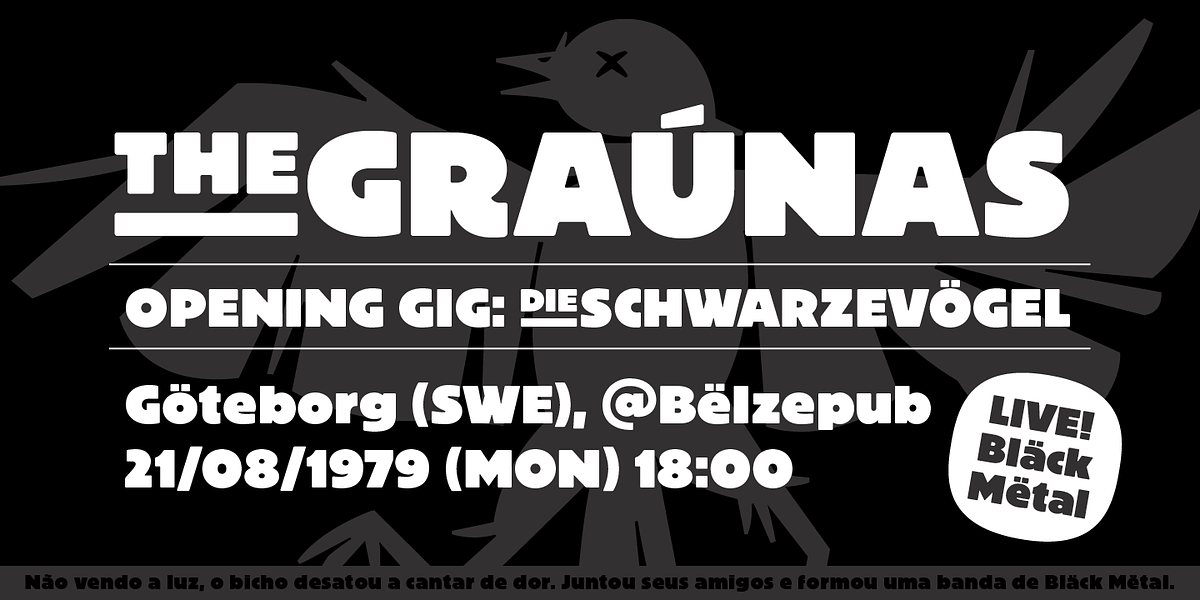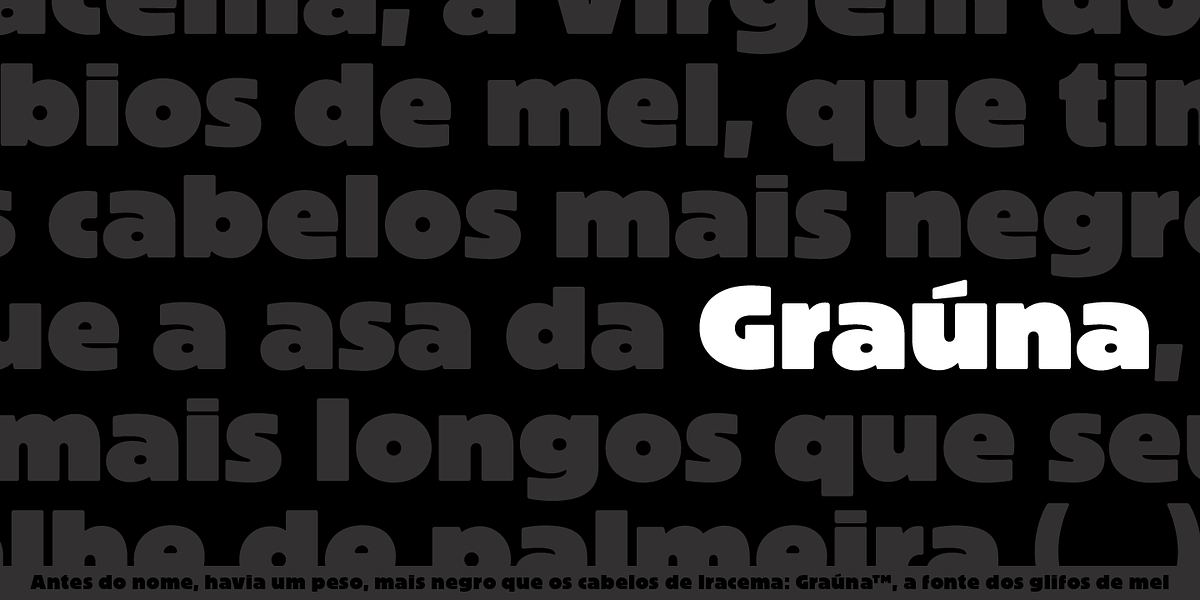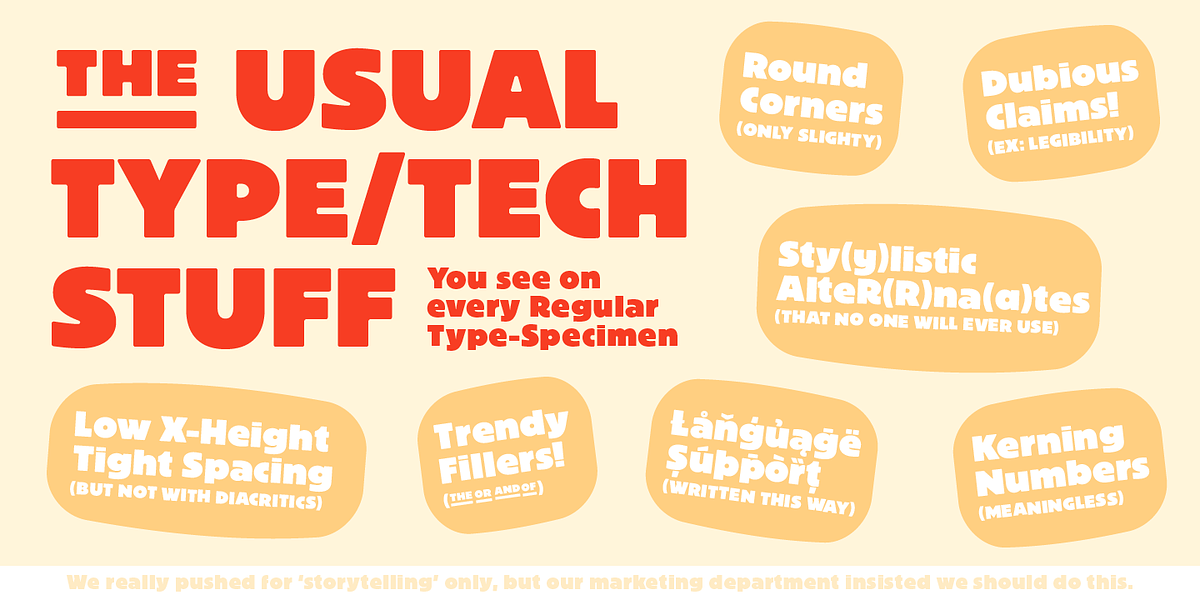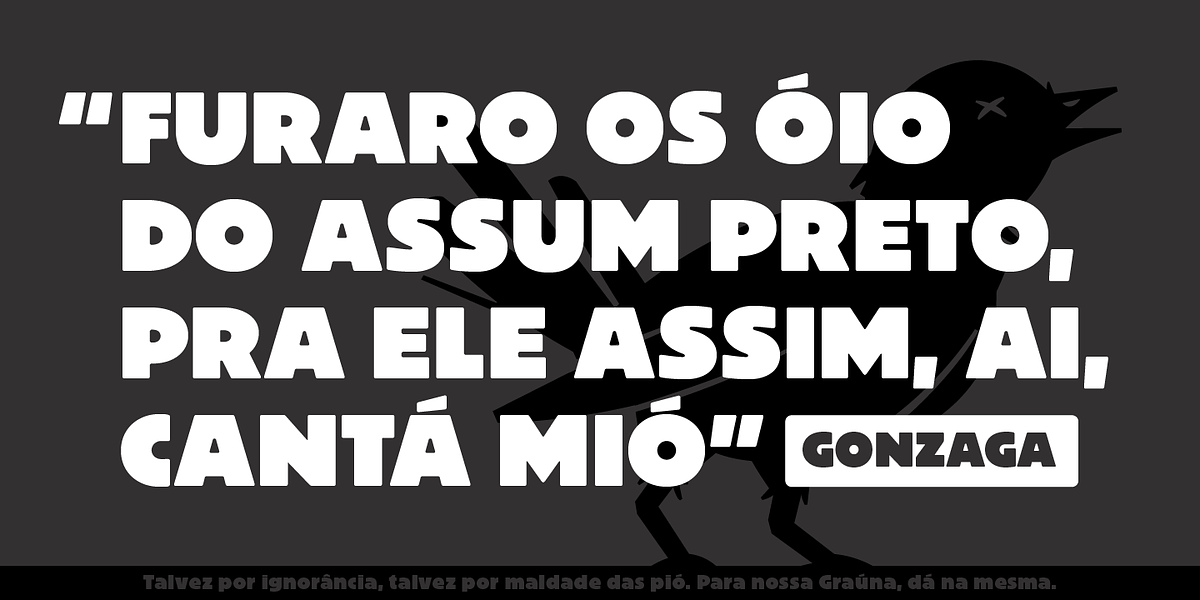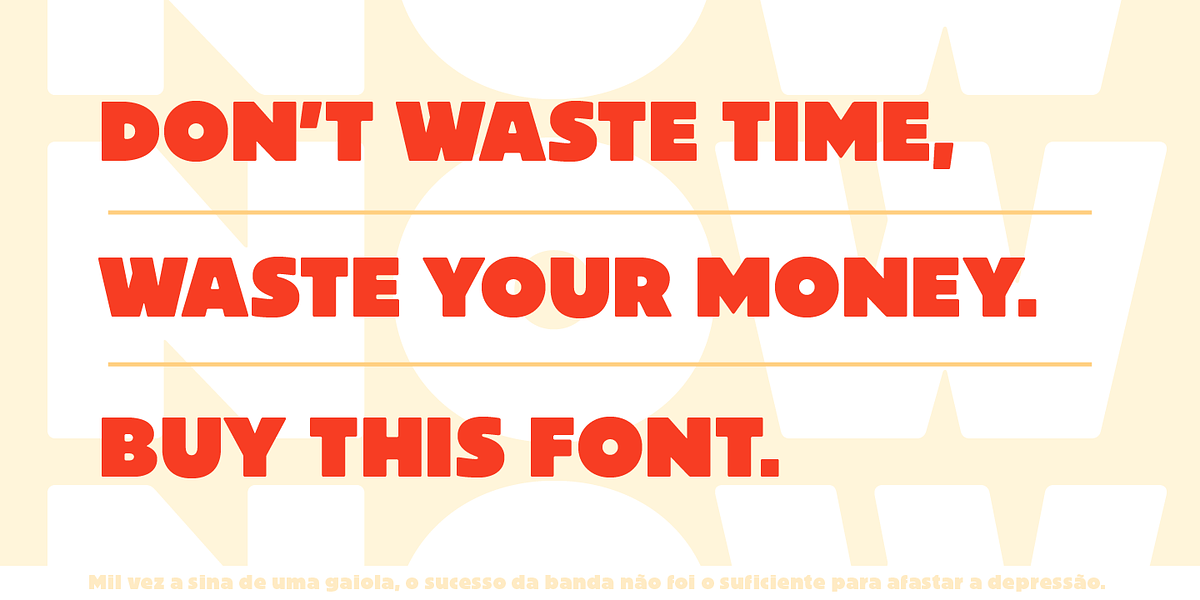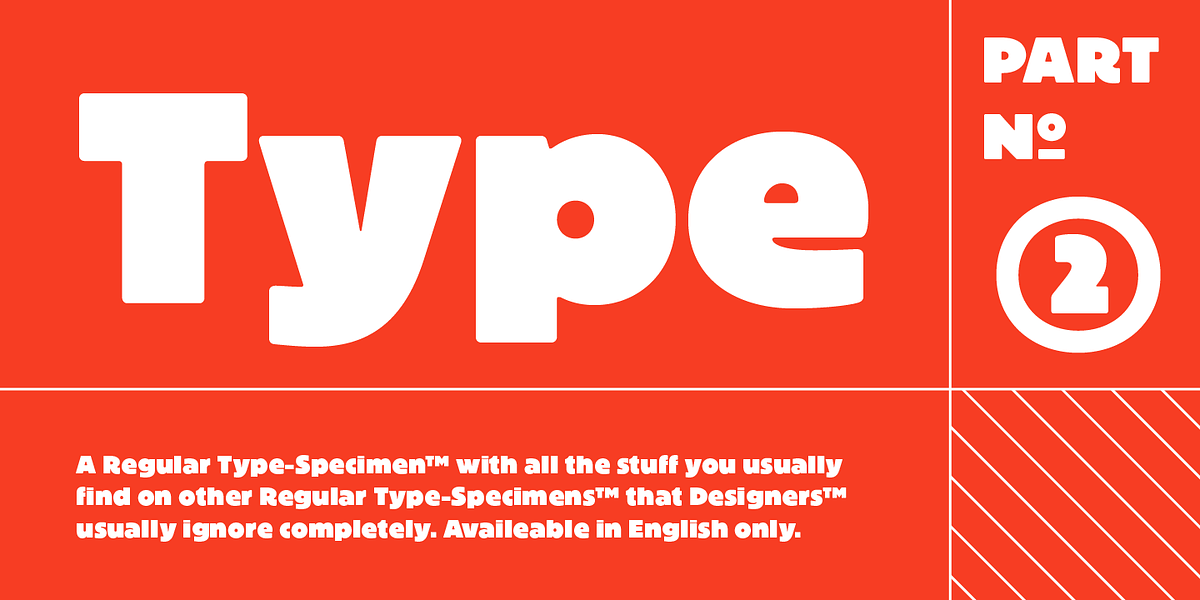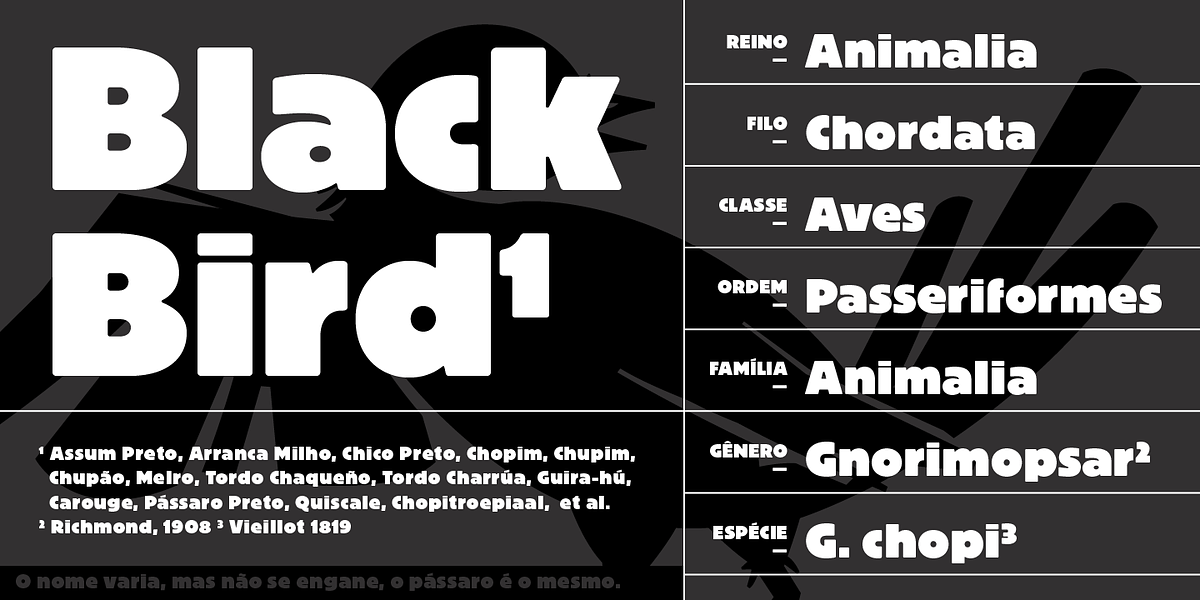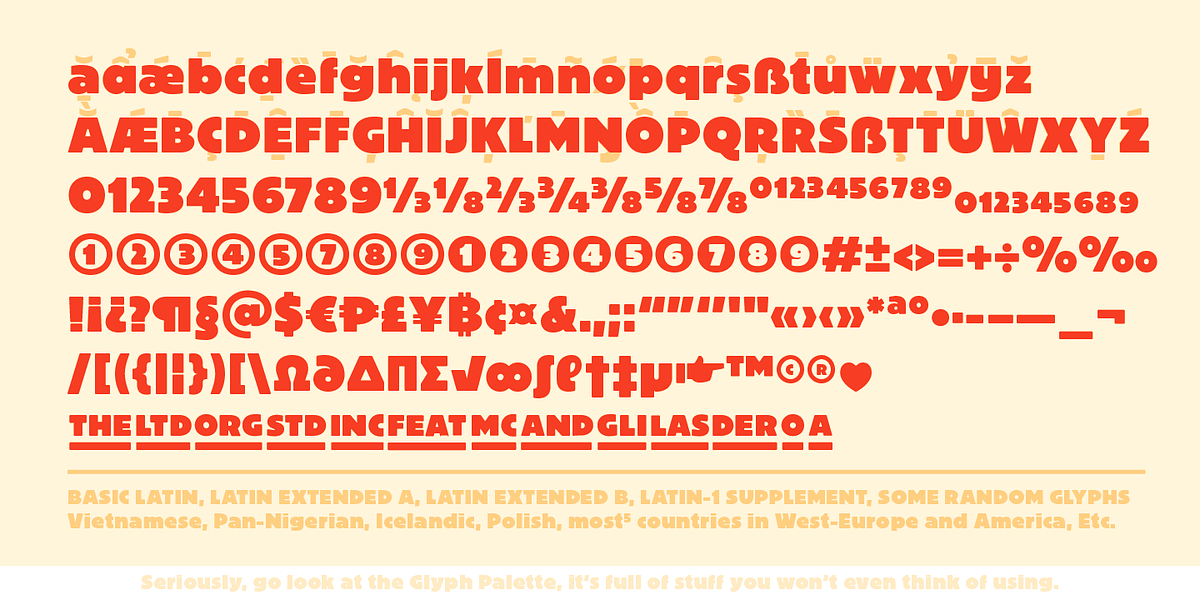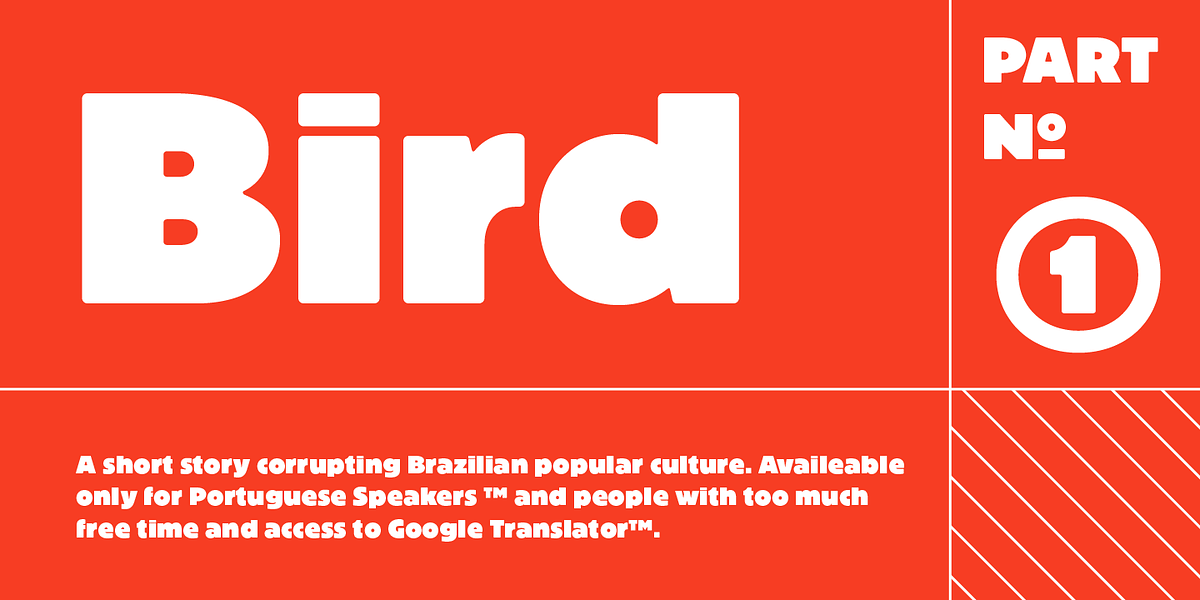
Graúna
Graúna is a sans serif typeface designed with inspiration from the Block Heavy typeface. While initially intended as a revival without the 'rough' texture, the designers discovered that those quirks contributed to the unique character of the original Heavy weight. The result is an impactful yet friendly geometric sans serif well-suited for logos and short titles.